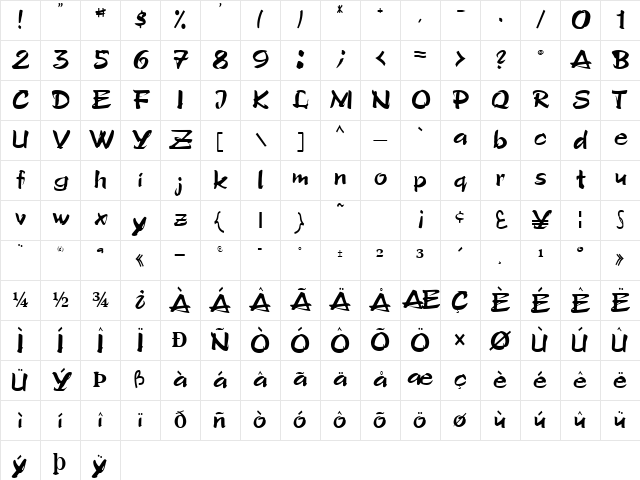
TriBecca90 Regular Free Font
TriBecca90 Regular
Design Context for TriBecca90
TriBecca90 is a composed and adaptable typeface that performs quietly and consistently across a wide range of design contexts.